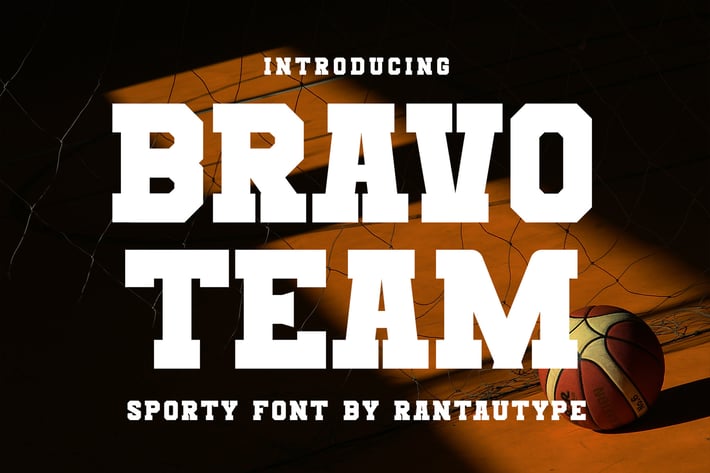
BravoTeam Sporty Font
Experience sporty in a visual form for your design with the bravoteam font. Inspired by sport brand and retro concept, targeting the sport forward mentality with a bold shape to make the statement louder and modern than ever. bravoteam come with retro visual, strong curve and have already support multingual accent character.
A very versatile font that works in large and small sizes. Perfectly suitable for any creative endeavor, personal project, corporate, enterprise, industrial, sports brand, logo, esports, games, posters, film/movice, sport events, advertising, gym and fitness, digital futuristic concept and more. Now you can using Bravoteam to elevate you work.
All uppercase
Multilinggual accent character support